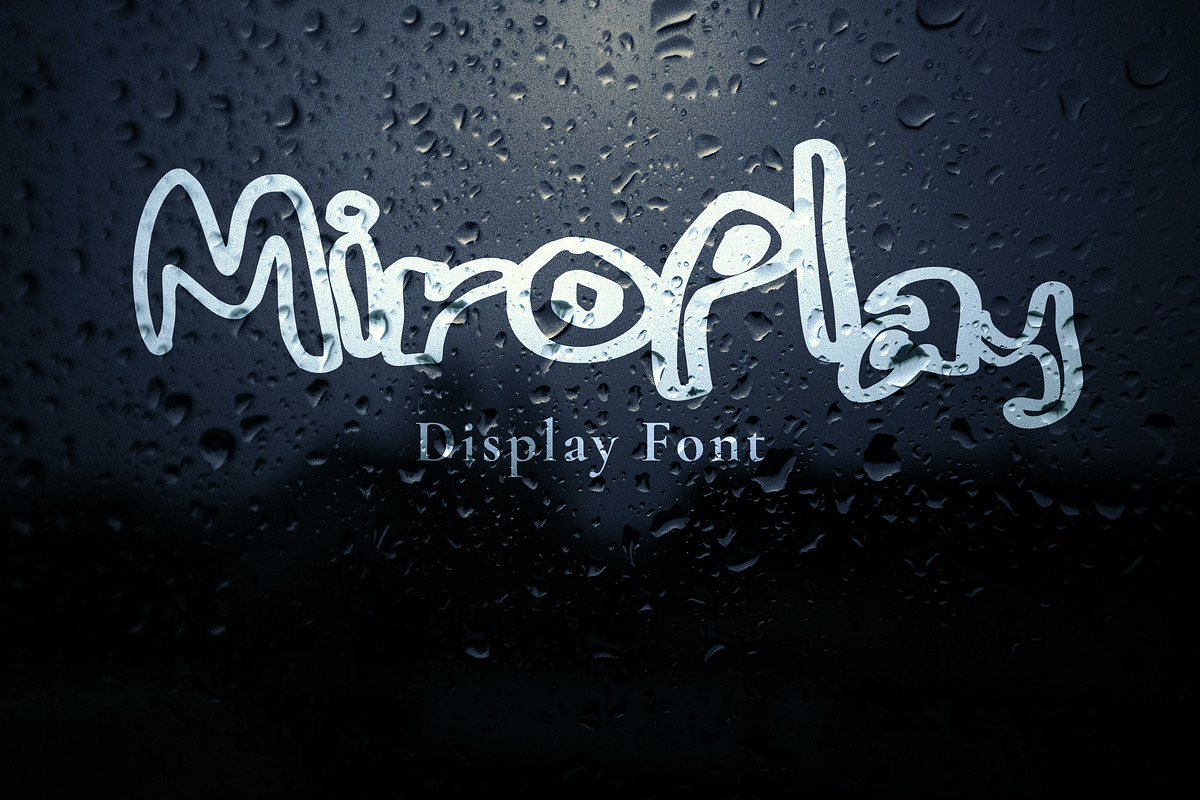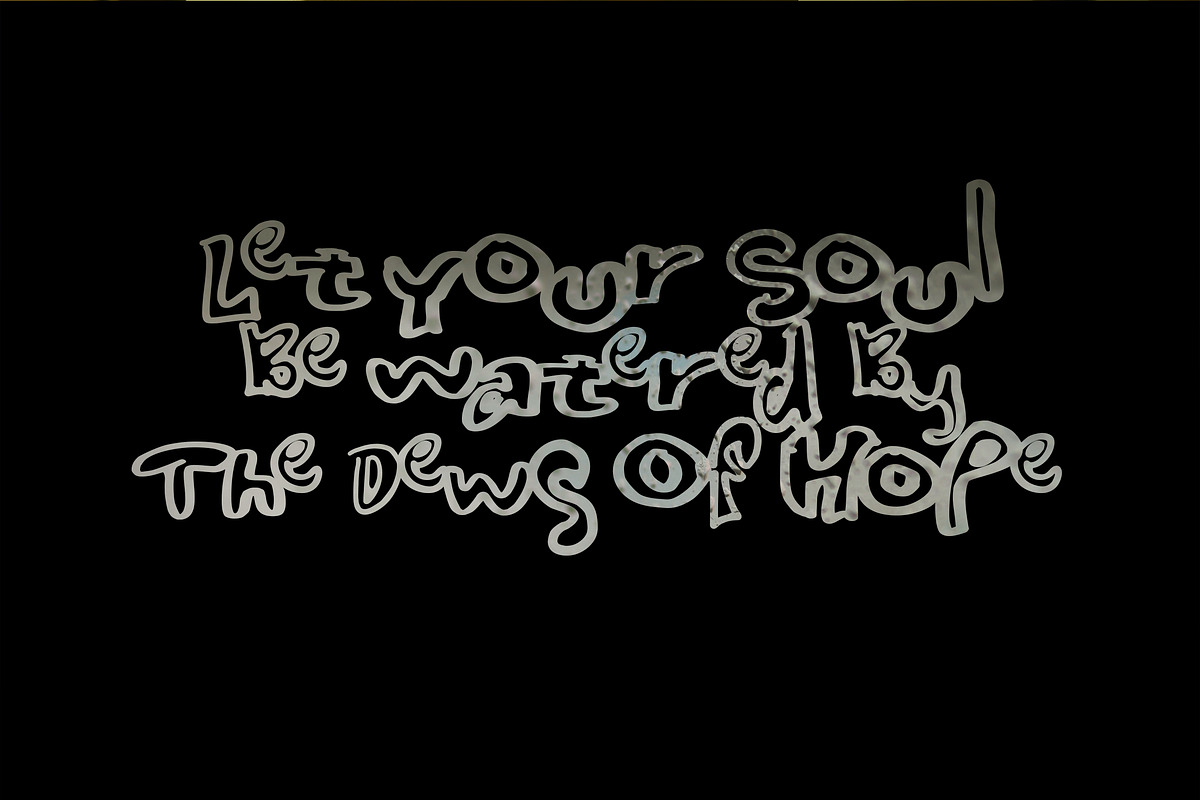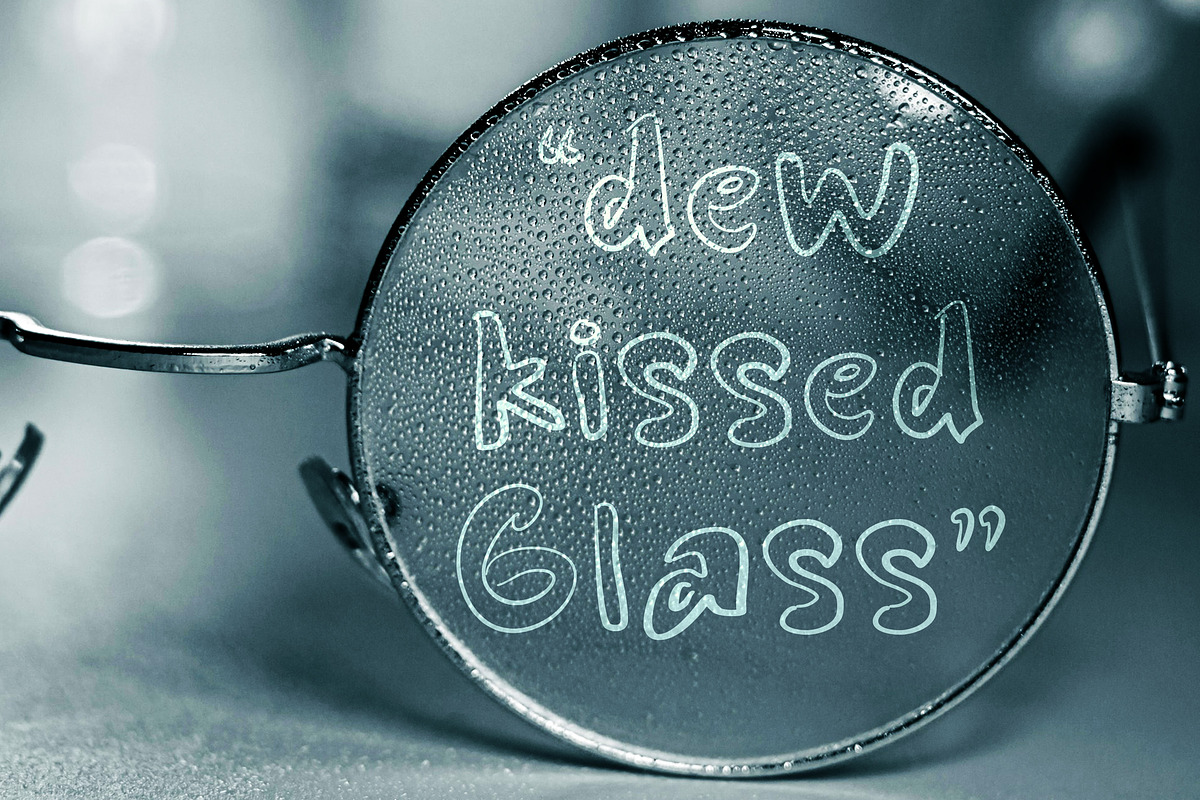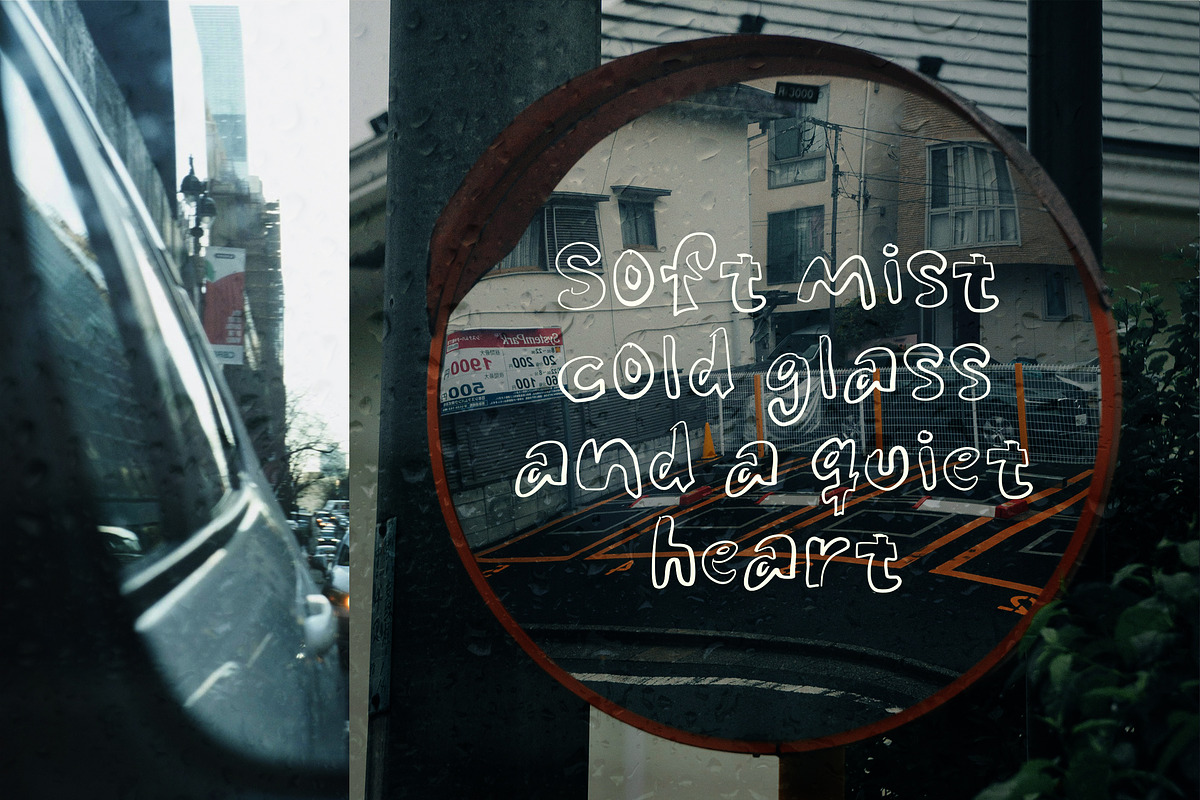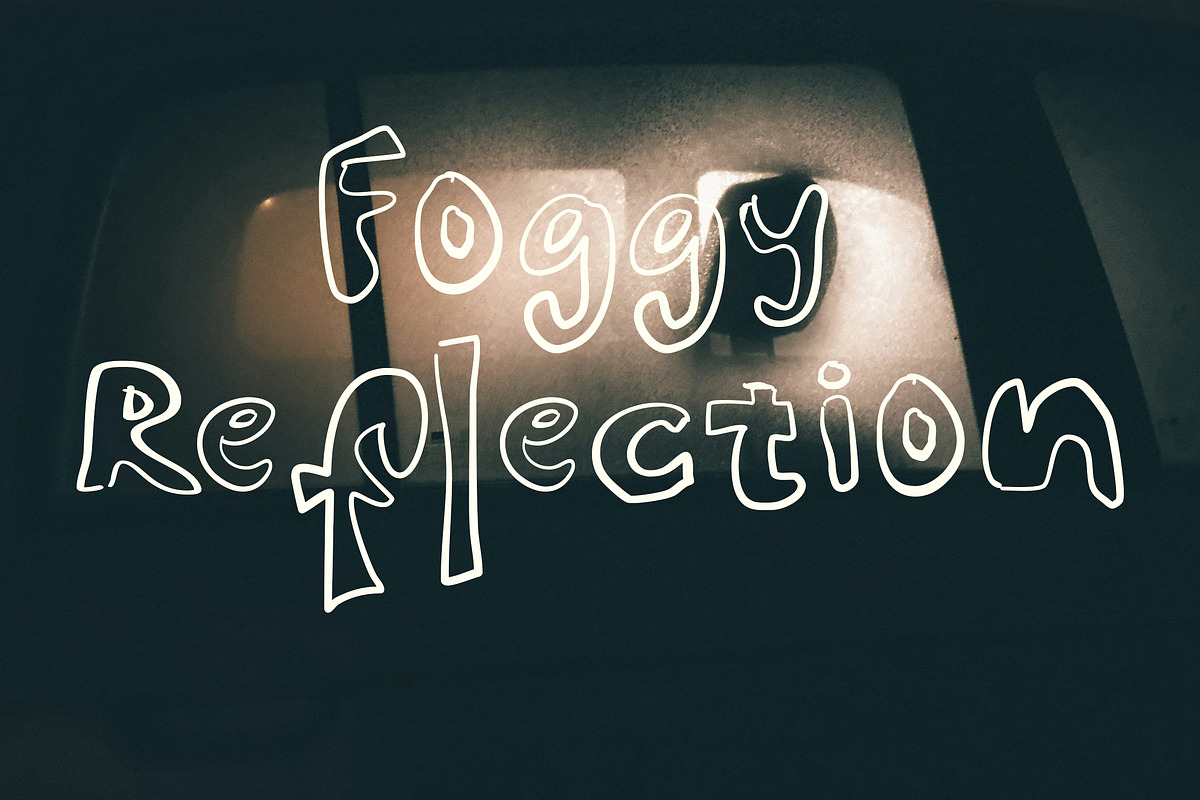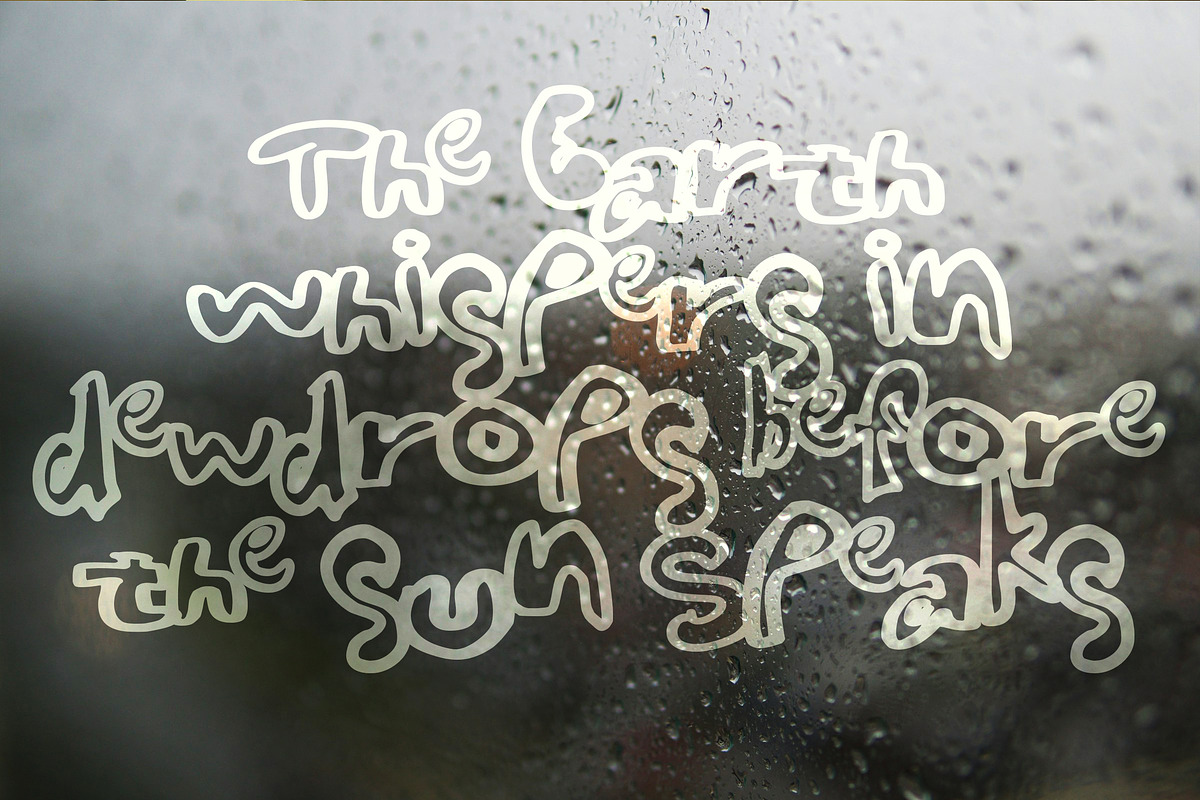
Miroplay – The Quirky Display Font
Break the rules of typography with Miroplay! This font is designed for those who find beauty in disorder. Featuring a rebellious mix of haphazardly sized uppercase and lowercase characters, it brings a hand-drawn, spontaneous energy to every word you type.
Perfect for eye-catching posters, unique branding, social media graphics, and any project that needs a punch of "perfectly imperfect" personality.
Irregular character heights for a bouncy, rhythmic feel.
Unique, one-of-a-kind letterforms.
Perfect for headlines, merch design, and edgy packaging.